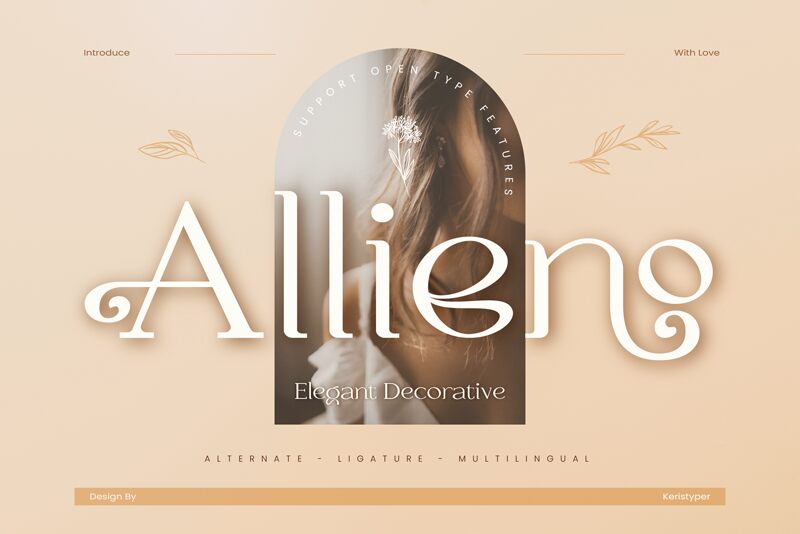
Allieno Regular
Allieno font by Tezar Tantular is a free serif font that brings elegance and sophistication to every design. Inspired by the classic era, it features a balanced look where computable rectangular shapes take over. These perfectly curved letterforms can help you build expressive designs with the desired viewer’s reaction in mind.
On what projects can you employ Allieno? Let us count a few options: branding, logos, brochures, websites, packaging projects, social media posts, video effects/titles, picture captions, novels/books/short stories covers or titles.